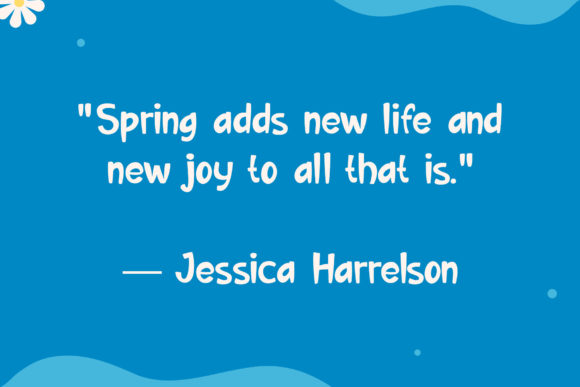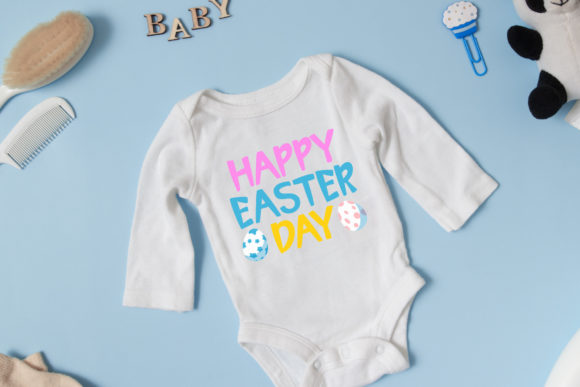
Rabbitie Font
About Rabbitie Font
Rabbitie is a font that exudes a charming and childlike playfulness, making it the perfect choice to infuse joy and whimsy into your kids and school projects. With its cute handwritten style, Rabbitie adds a touch of innocence and creativity to any design, capturing the essence of youthful imagination.
Imagine Rabbitie gracing the pages of a children’s book, its quirky and endearing letters bringing characters and stories to life. Picture it on a school flyer, playfully announcing upcoming events and activities, instantly captivating the attention of students and parents alike.
The font’s unique character and adorable charm make it a fantastic choice for crafting invitations to school parties, creating vibrant classroom posters, and adding a dash of fun to educational materials. Its childlike strokes and playful curves create a sense of familiarity and comfort, making Rabbitie an instant favorite among young audiences.
Rabbitie isn’t just a font; it’s a creative tool that encourages exploration and imagination. Its handwritten feel adds a personal and human touch to your designs, making them relatable and engaging. The font’s versatility ensures that it works seamlessly across various applications, from digital media to print materials.
Let Rabbitie be your partner in bringing a sense of wonder and excitement to your kids and school projects. Embrace its cute handwritten charm and let it brighten up your designs, creating a lasting impact on young minds and fostering a love for learning and creativity.